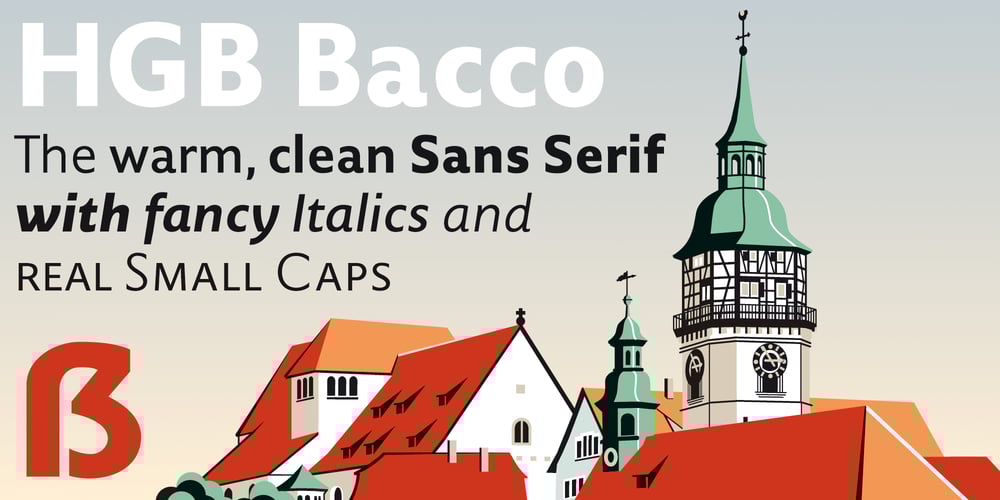
HGB Bacco Font Family was designed by Hellmut G. Bomm and published by HGB fonts. HGB Bacco contains 8 styles and family package options. Since 2005, I have repeatedly attempted to create a neutral-looking grotesque with a humanistic character. I wanted a pleasant, soft typeface. The typeface should appear similar to Helvetica or Univers, but with more open shapes and therefore better readability.The features are deliberately reserved with 4 gradations plus italics. The onum feature for Old Style Figures contains additional alternative letters such as a looped g. The italics have a swash feature with some decorative shapes.As a sans serif, HGB Bacco does not appear to be technically constructed, but has a friendly, open character and is also suitable for longer texts.